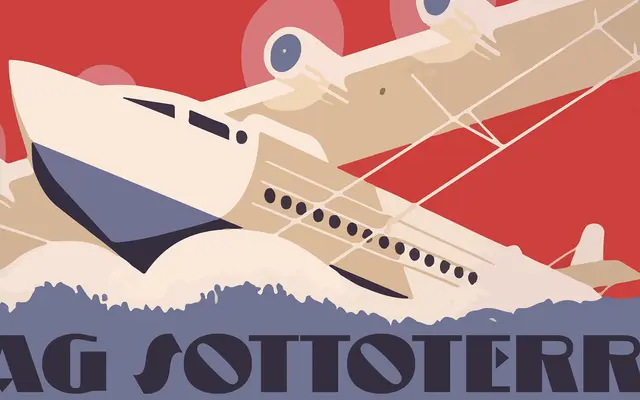
Prop-a-ganda project
A collection of display typefaces drawn from mid-century propaganda posters, vintage advertisements and retro packaging from around the world.
Prop-a-ganda is a series of display fonts by Dharma Type that channel the bold lettering traditions of global mid-century graphic design. The collection draws on sources including vintage propaganda posters, classic advertisements and retro packaging, aiming to capture the graphic directness of that era. Best suited to editorial work, packaging or branding projects that call for a period-specific flavour.
Bold, decorative letterforms drawn from mid-century propaganda posters, vintage advertisements and retro packaging place this firmly in the display category with a retro vernacular subcategory.